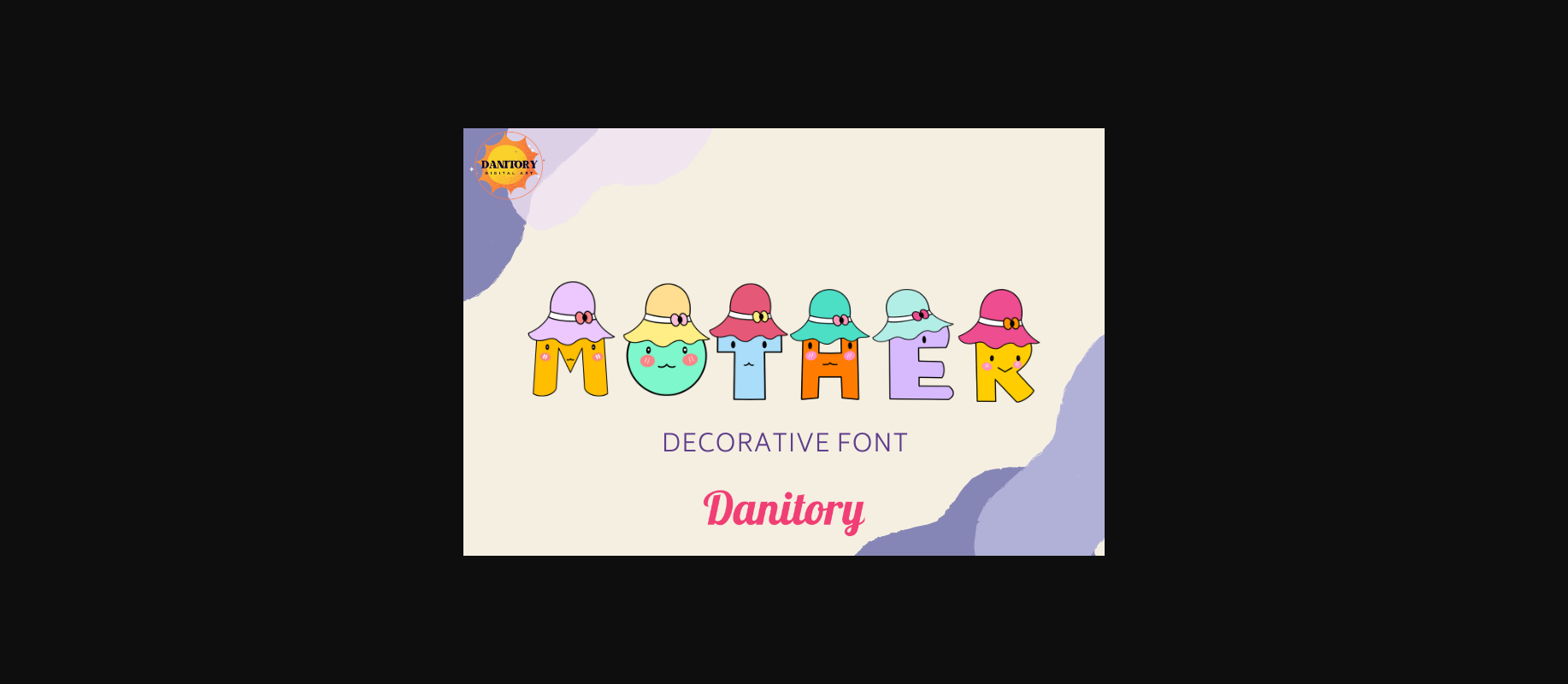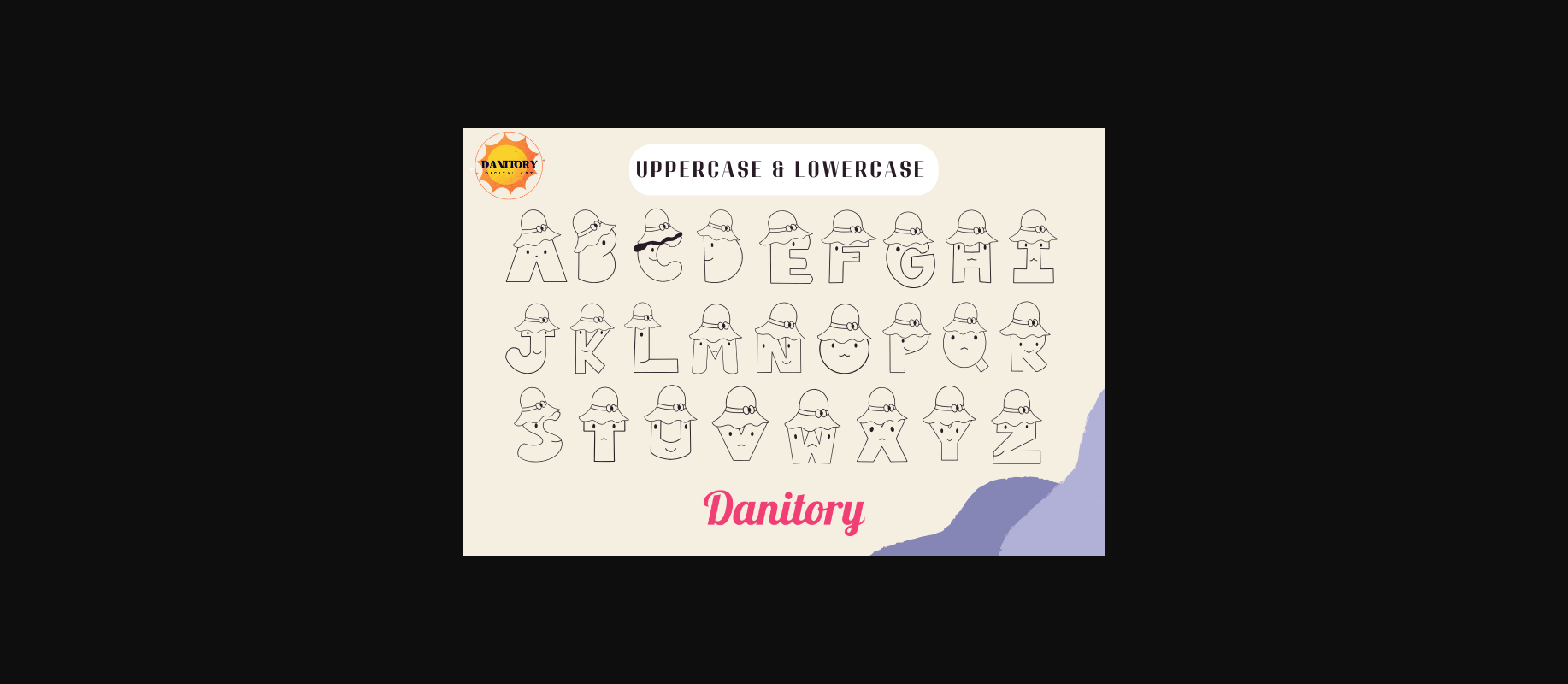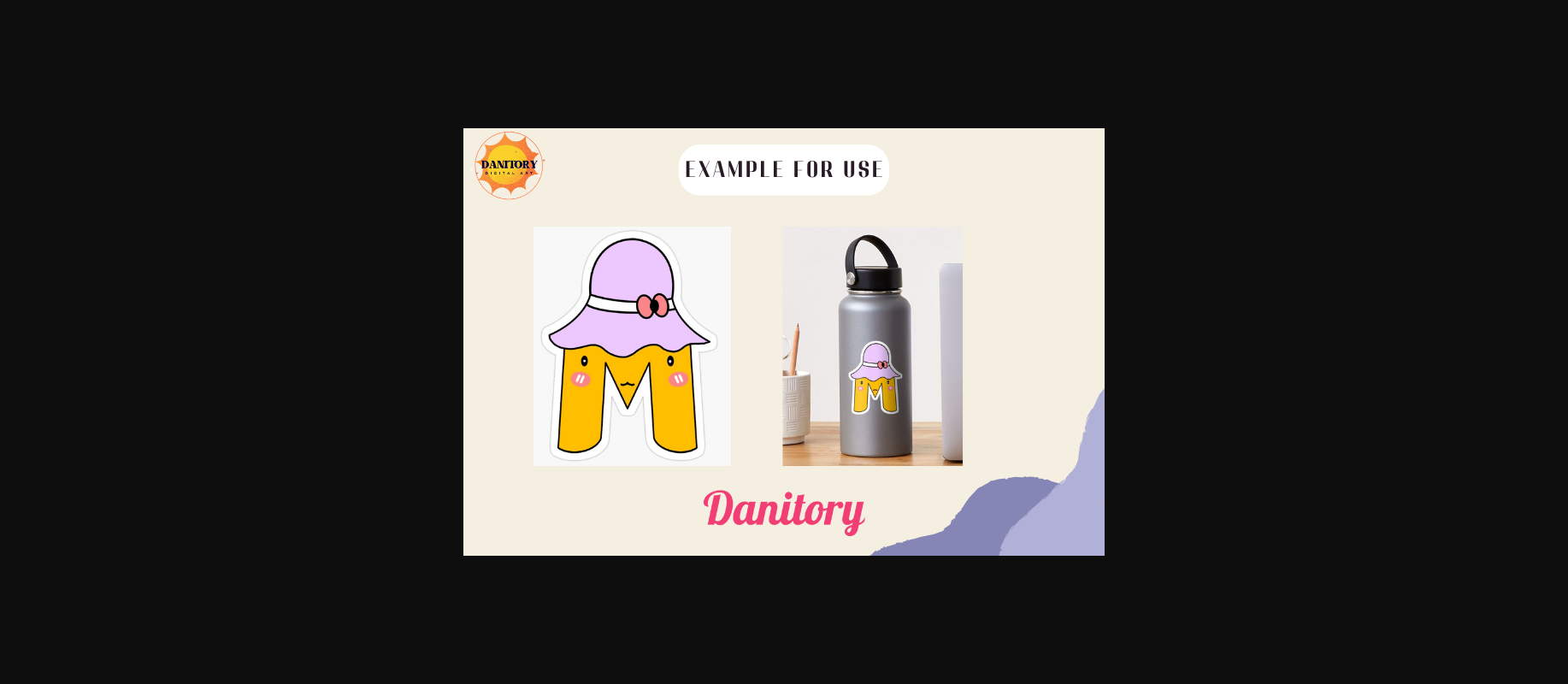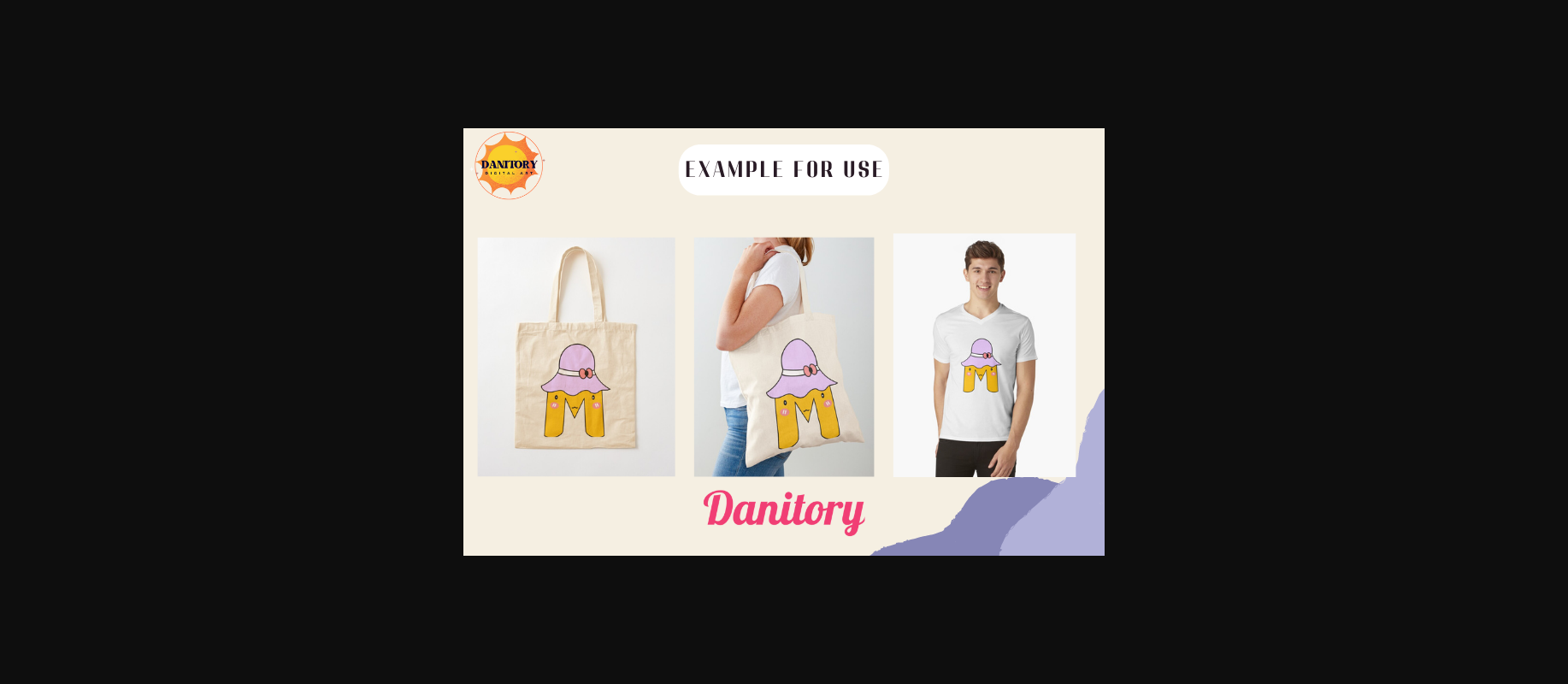
Mother Font
About Mother Font
Mother is a charming decorative font that adds a whimsical touch to any project. The font features various lovely hats providing a fun and playful aesthetic. The letters are bold and easy to read, making it perfect for posters, invitations, and greeting cards.